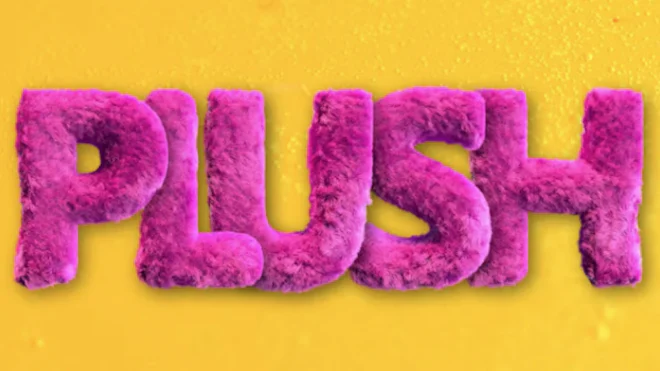
This stock motion graphics video pack includes 52 different clips of pink plush typefaces on a transparent alpha channel. The pack includes 26 letters, 10 numbers, and 16 symbols.